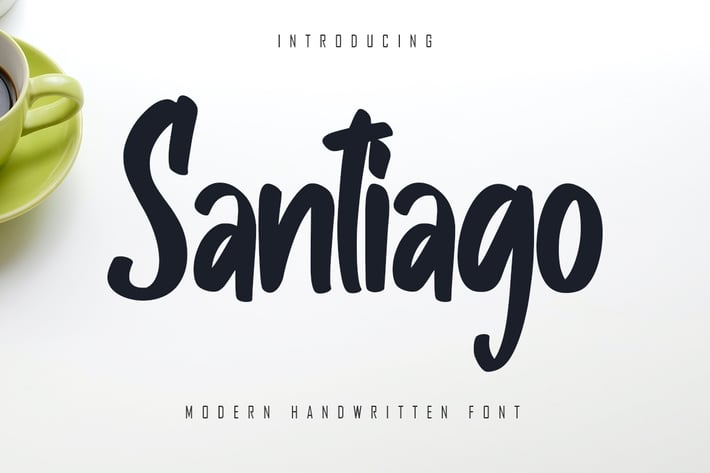
Santiago - Modern Handwritten Font
Santiago a Handwritten font. This font will very suitable for your fun project like children party, cute quotes, or any cute fun related projects. Grab it now !